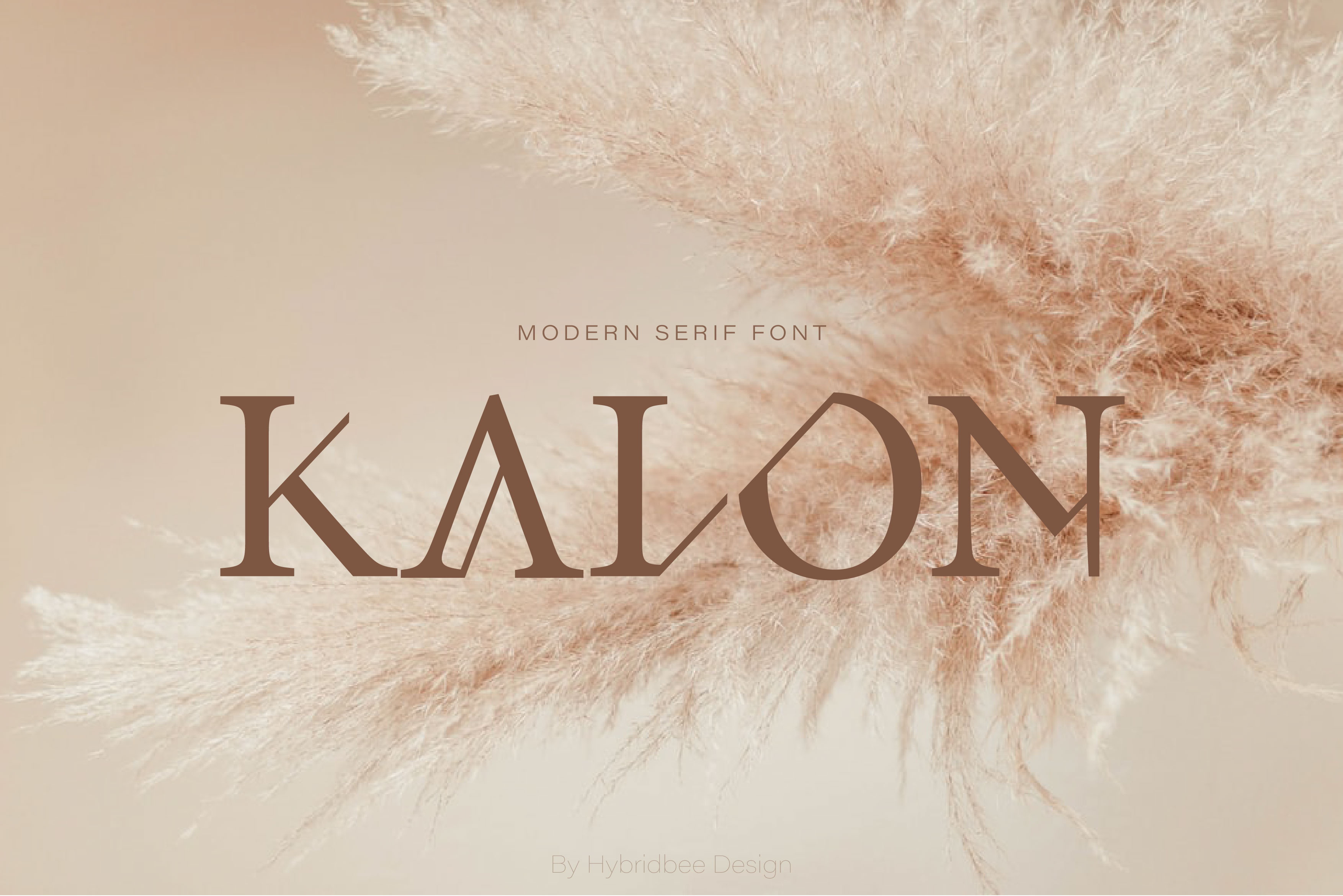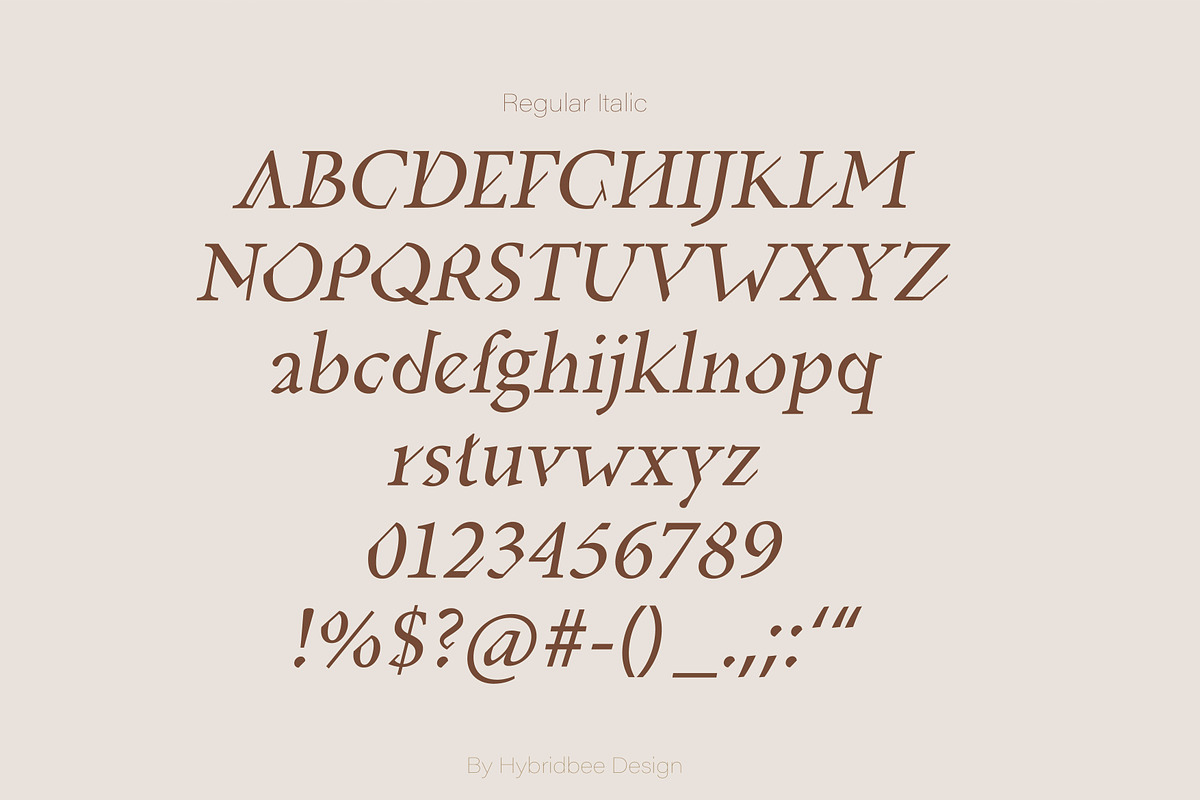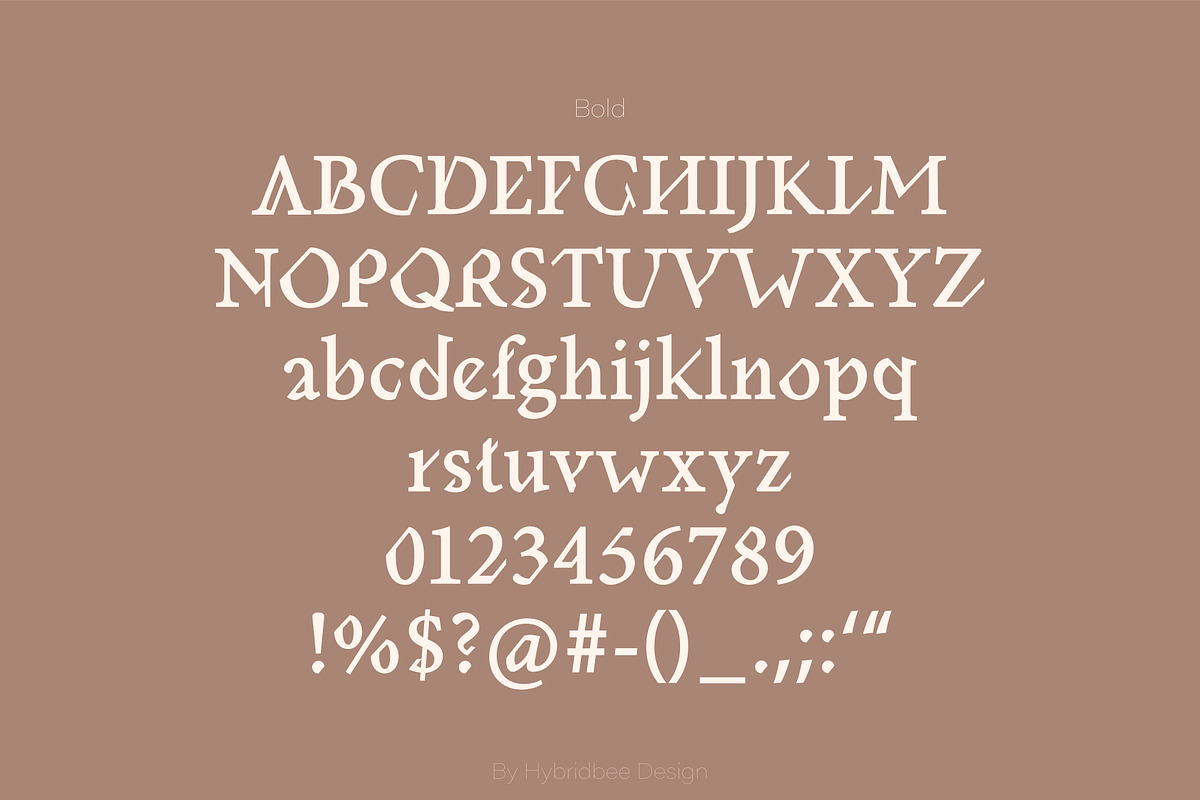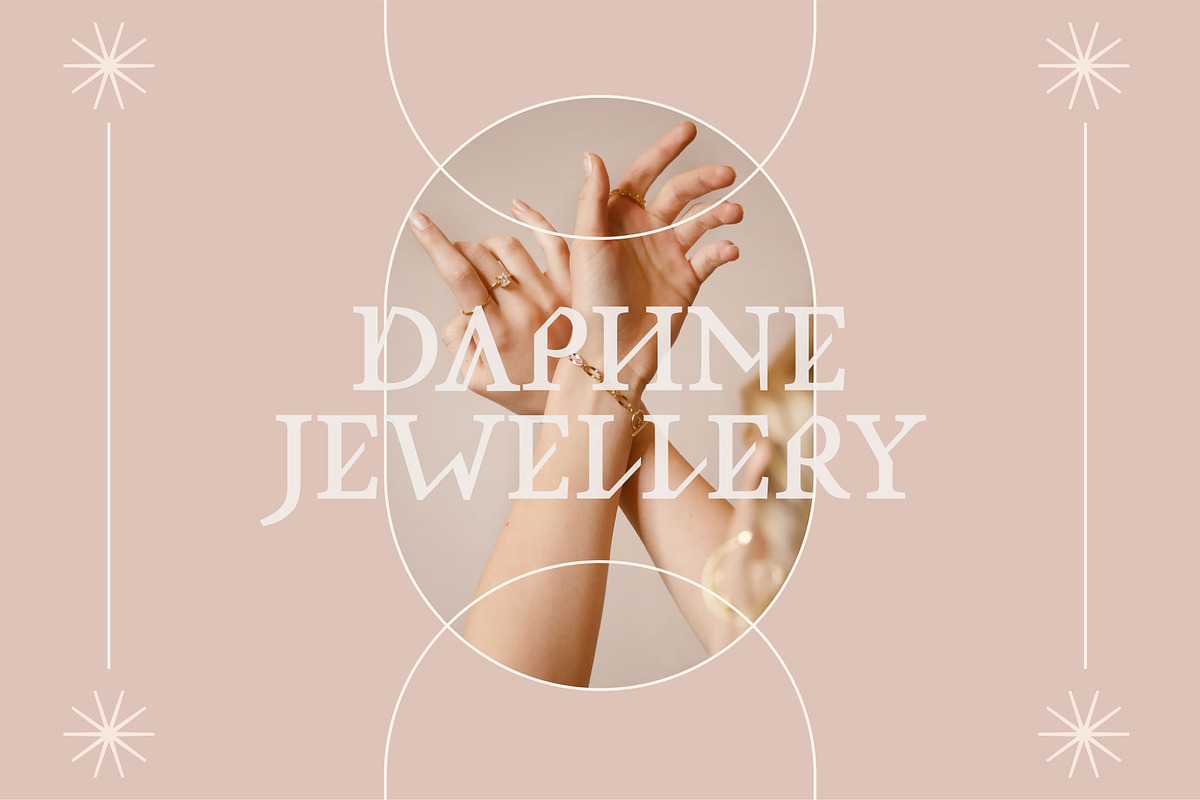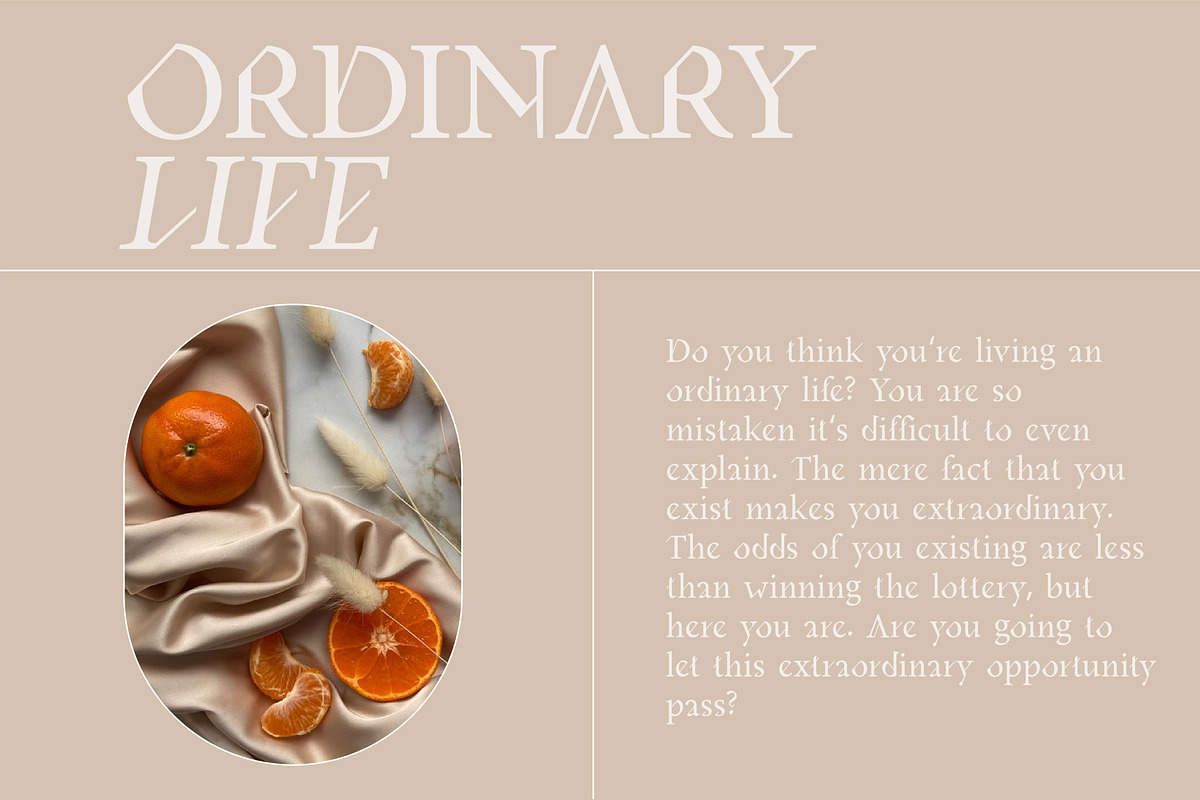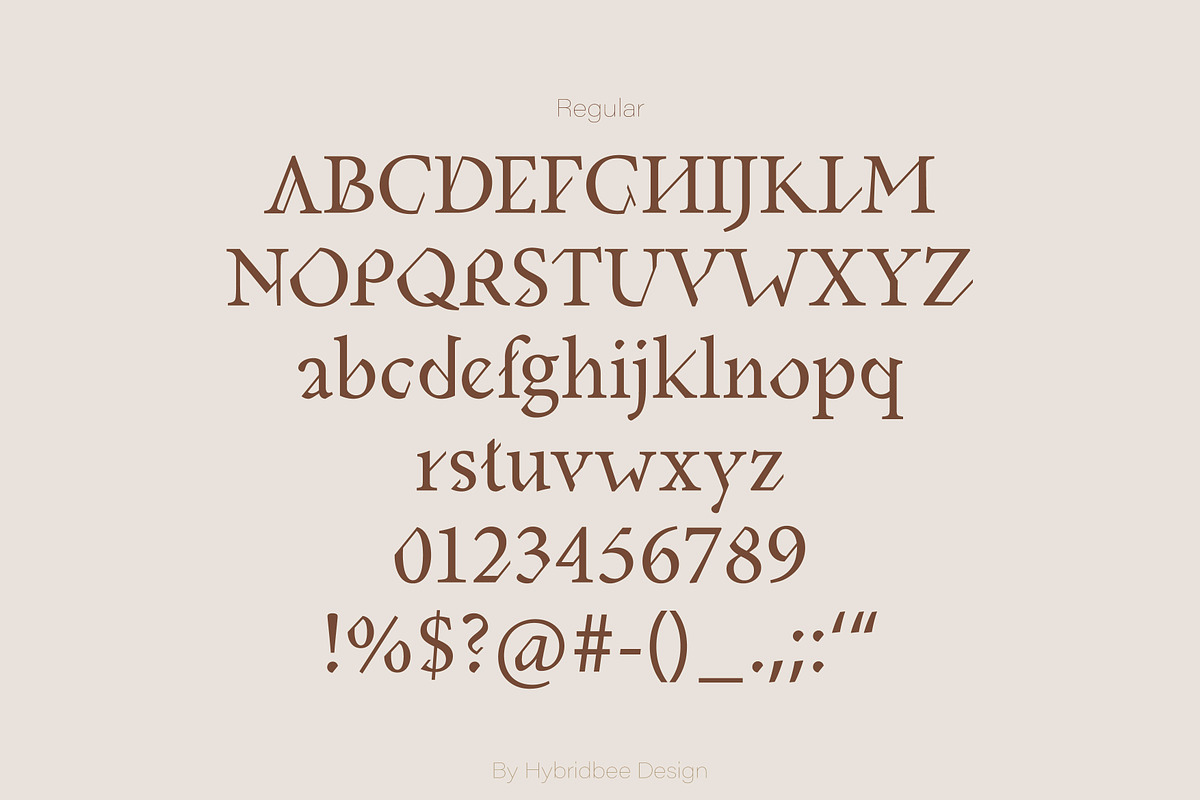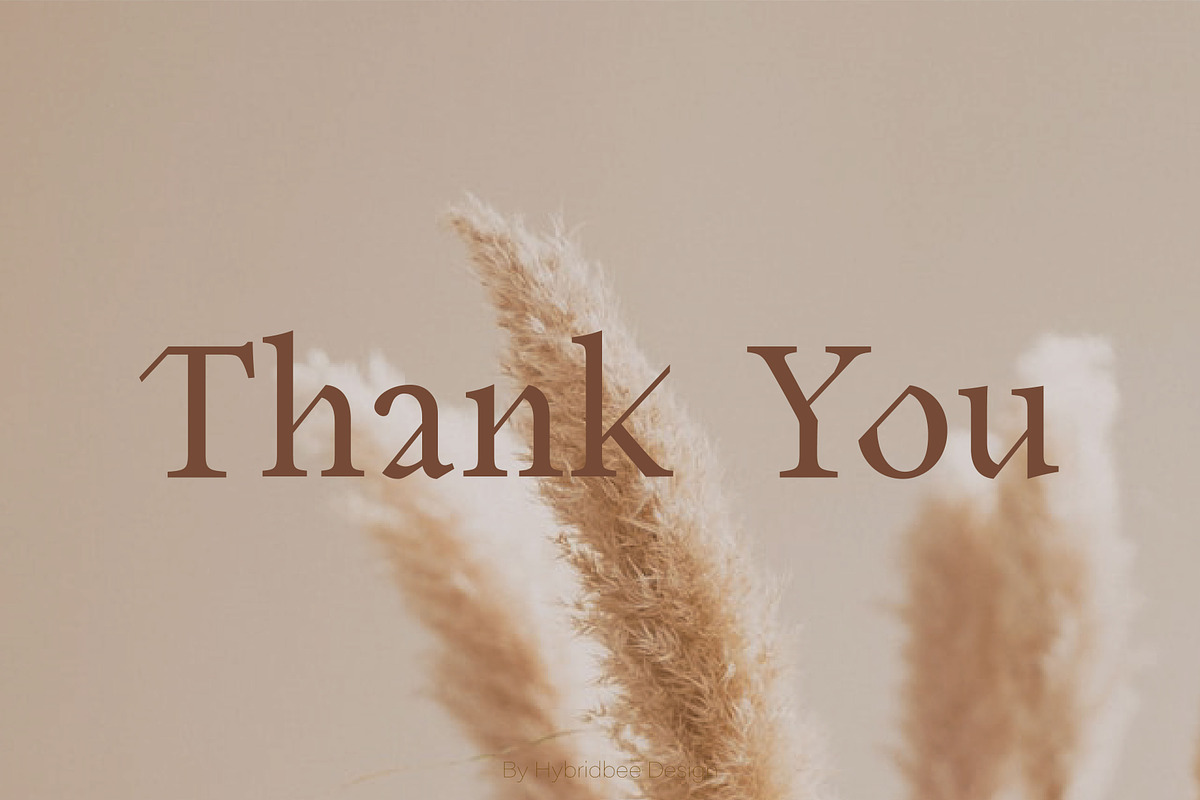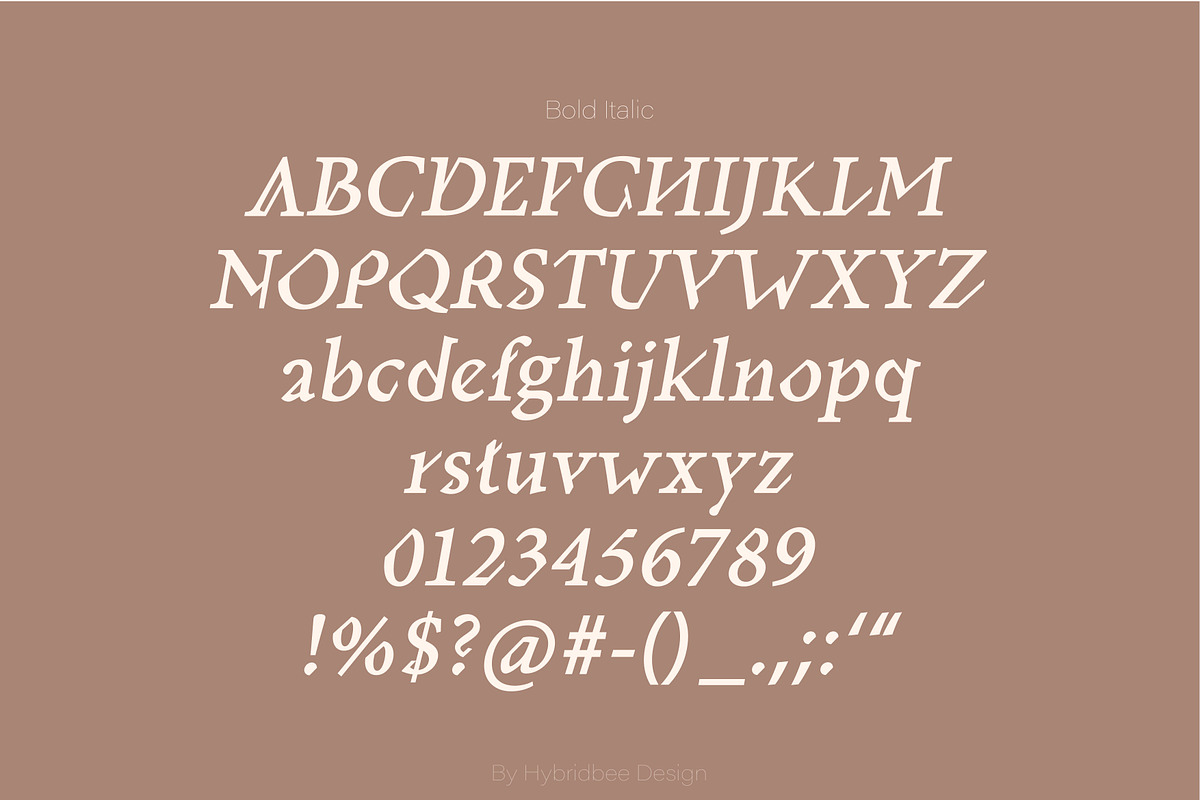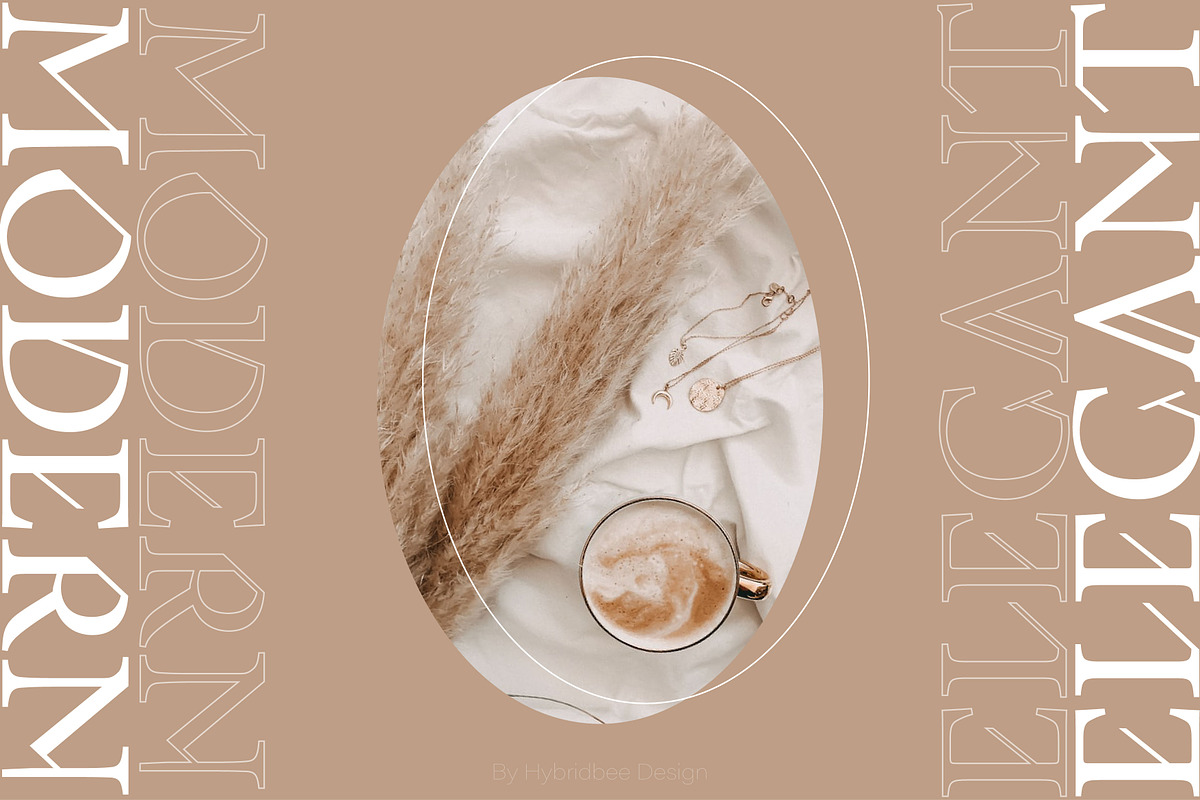
KALON – Serif Font
KALON – Serif font
Kalon is a serif font with a modern, elegant and artistic edge. It includes uppercase letters, lowercase letters, numerals and some punctuations in regular, italic, bold and bold italic. It has a minimalistic and sophisticated style and can be used to create headlines, branding, packaging, logo, web design, posters, and other design needs.